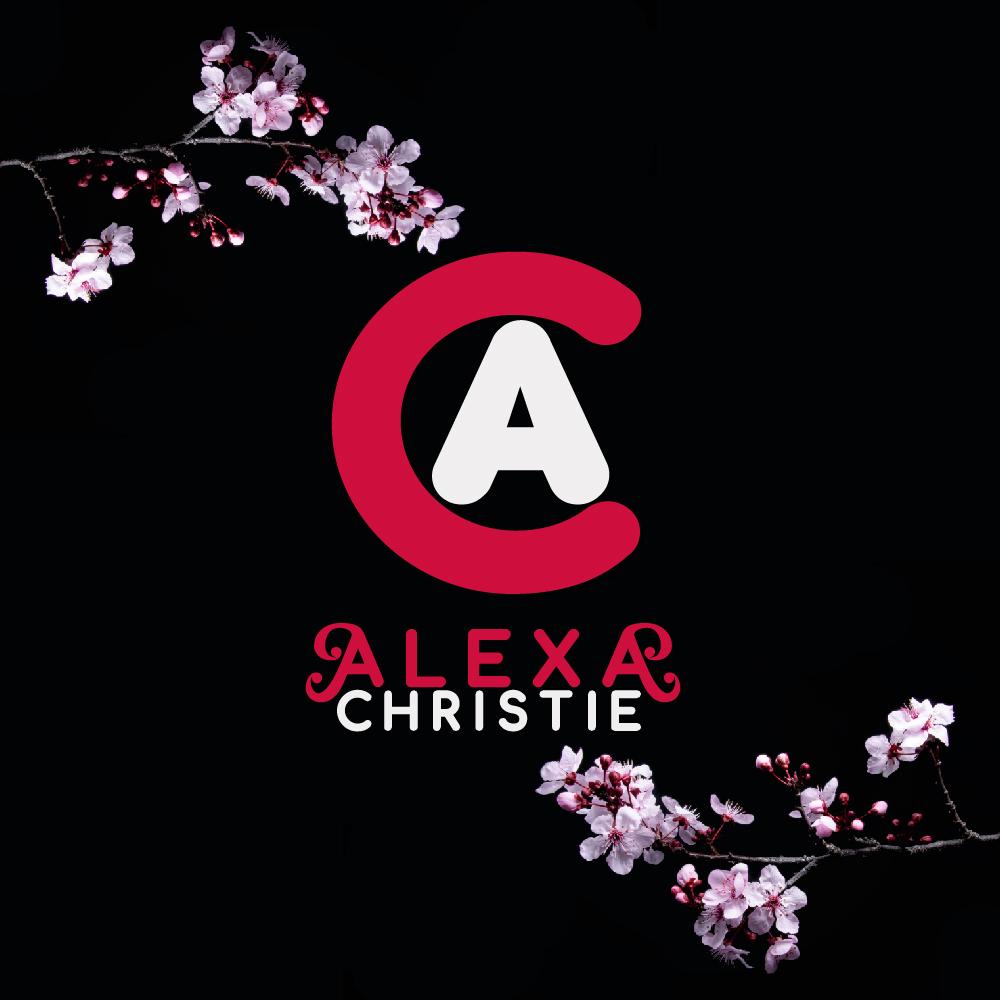
Linkone is a minimal, yet elegant sans serif font. Suitable to a wide variety of designs due to its neat and simple style, Linkone has the potential to become your favorite go-to font, no matter the occasion!